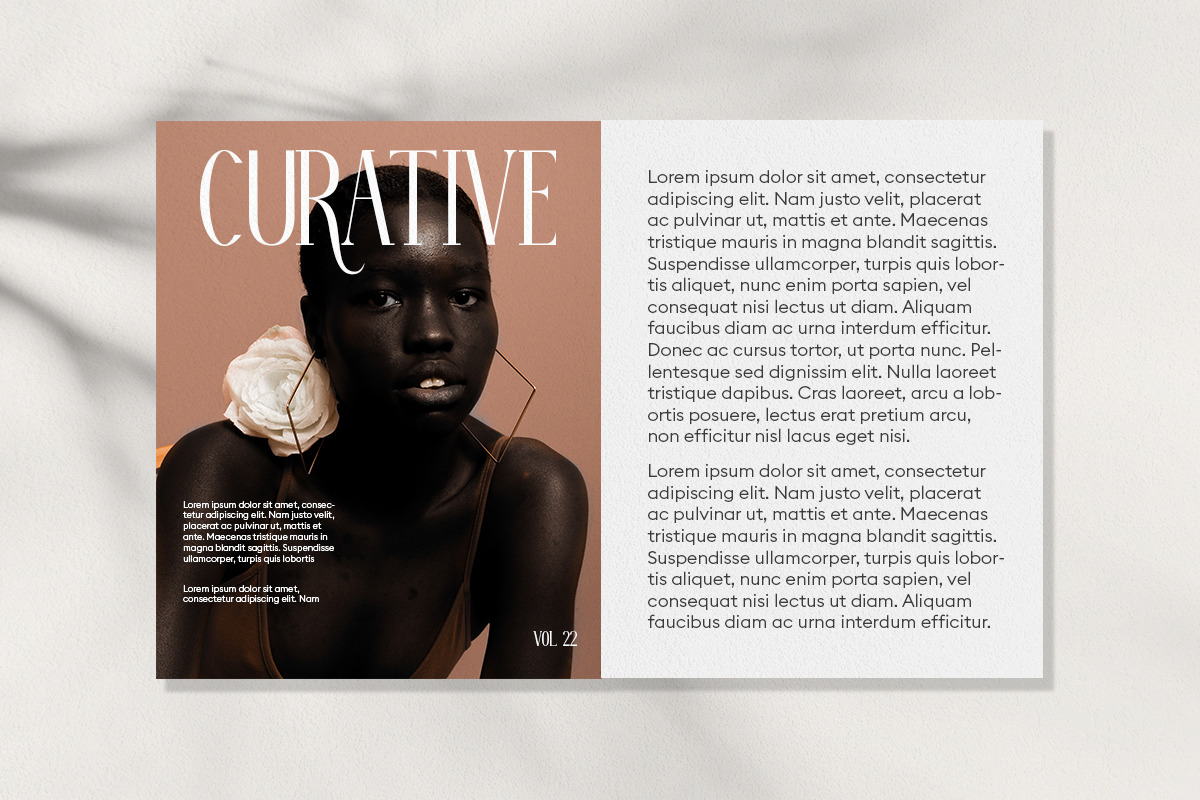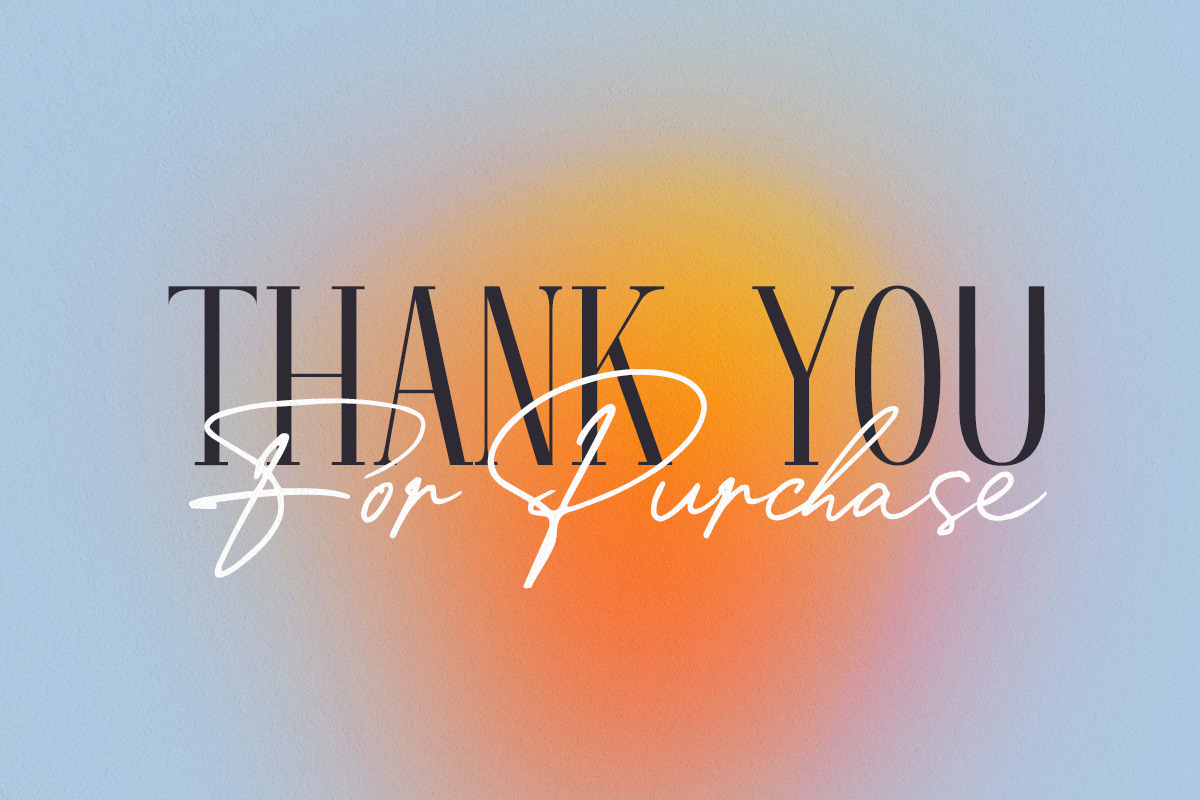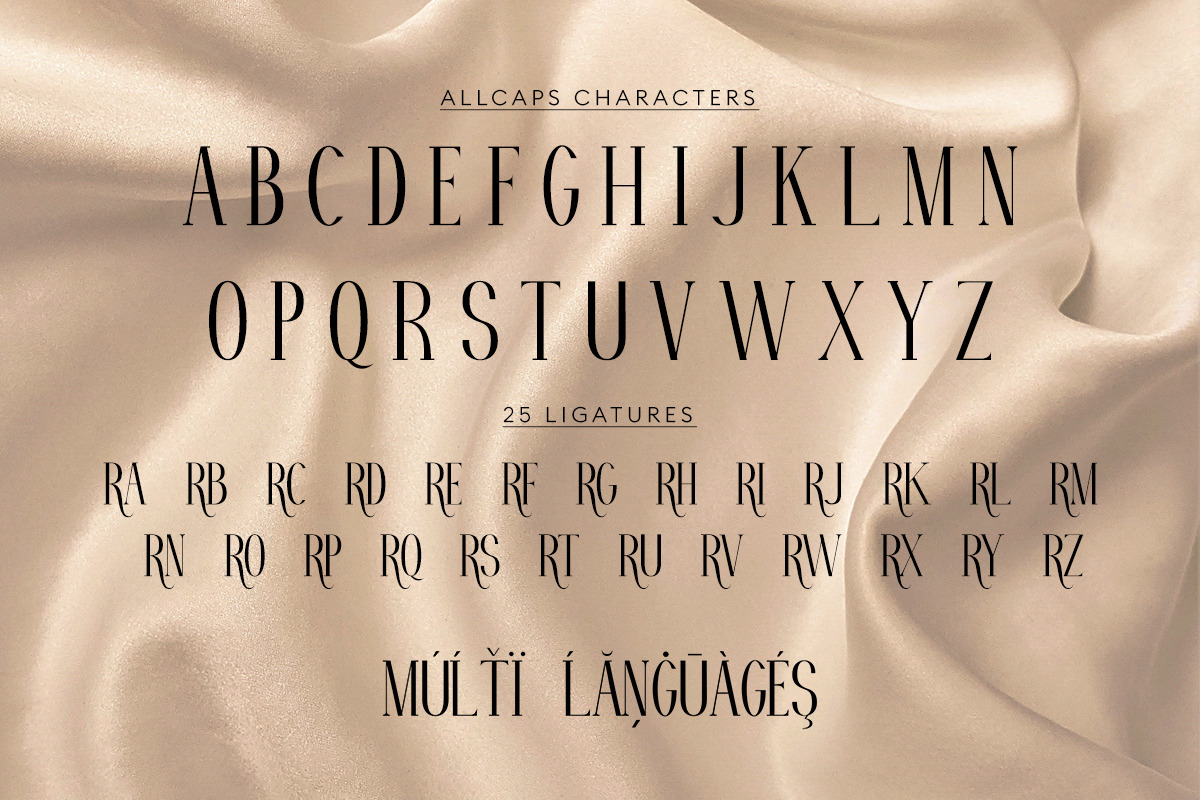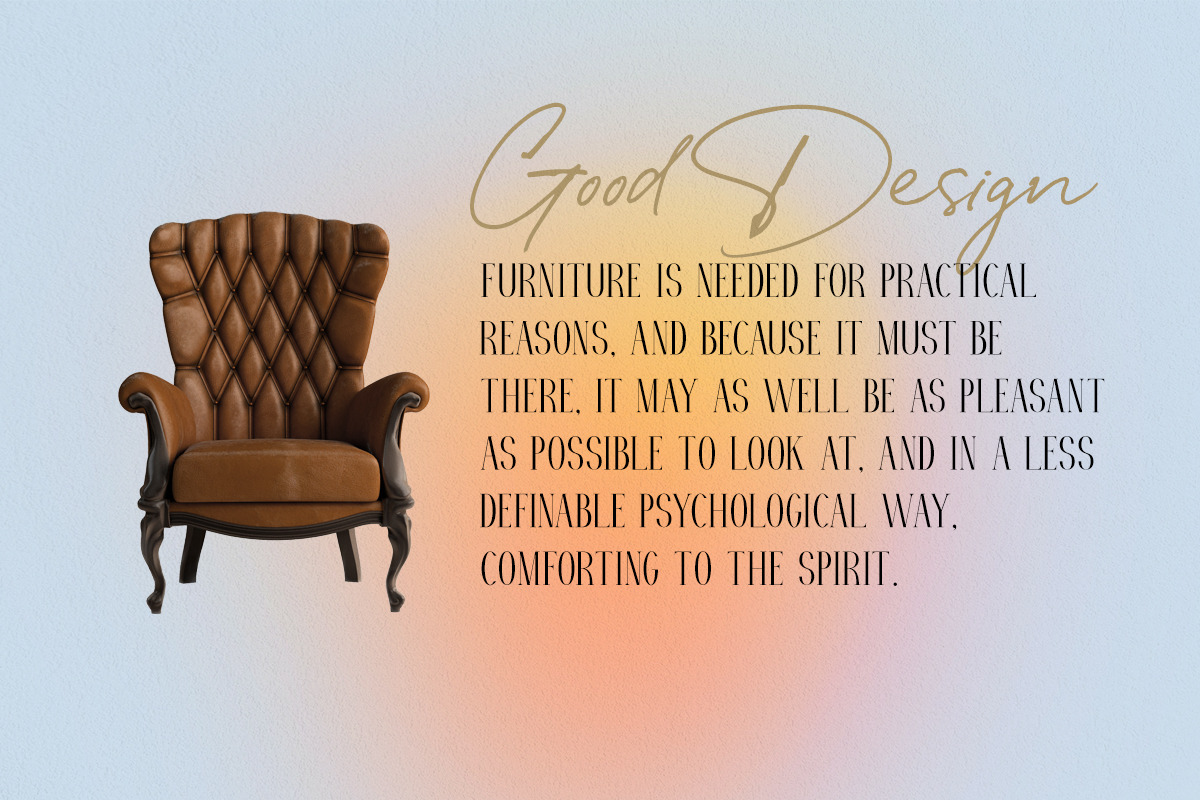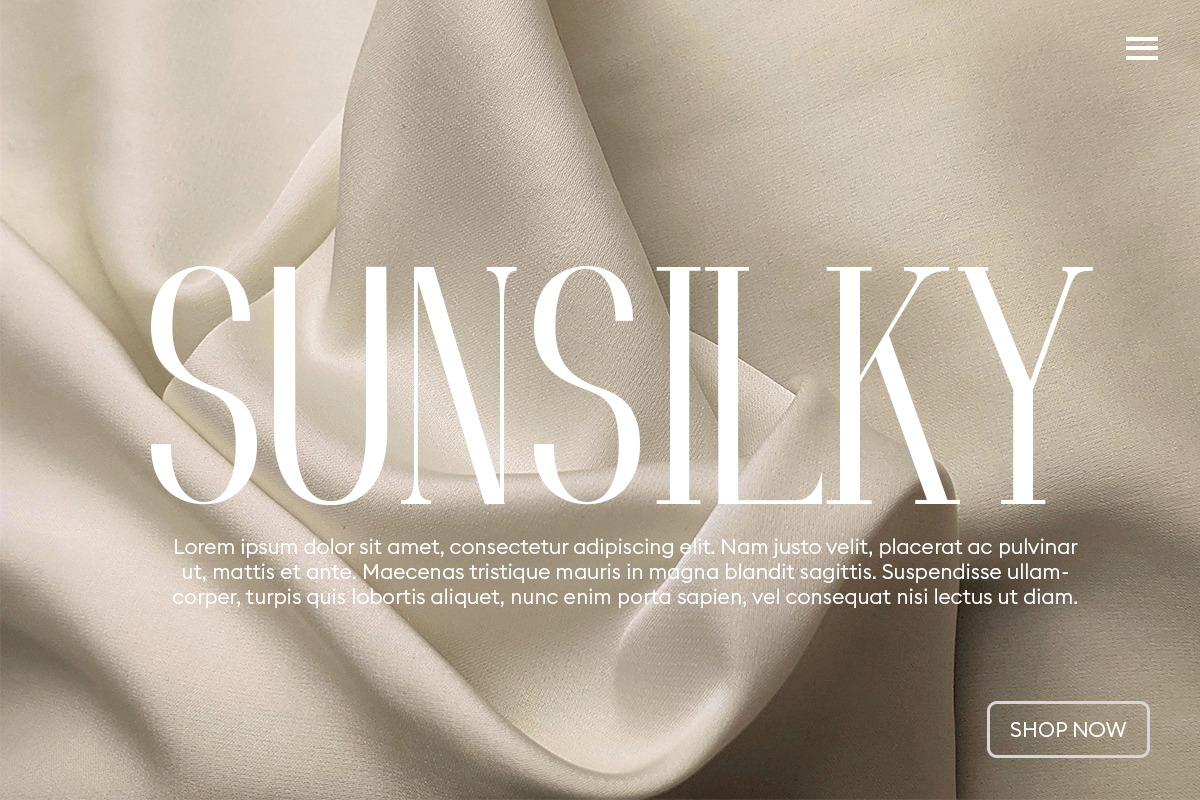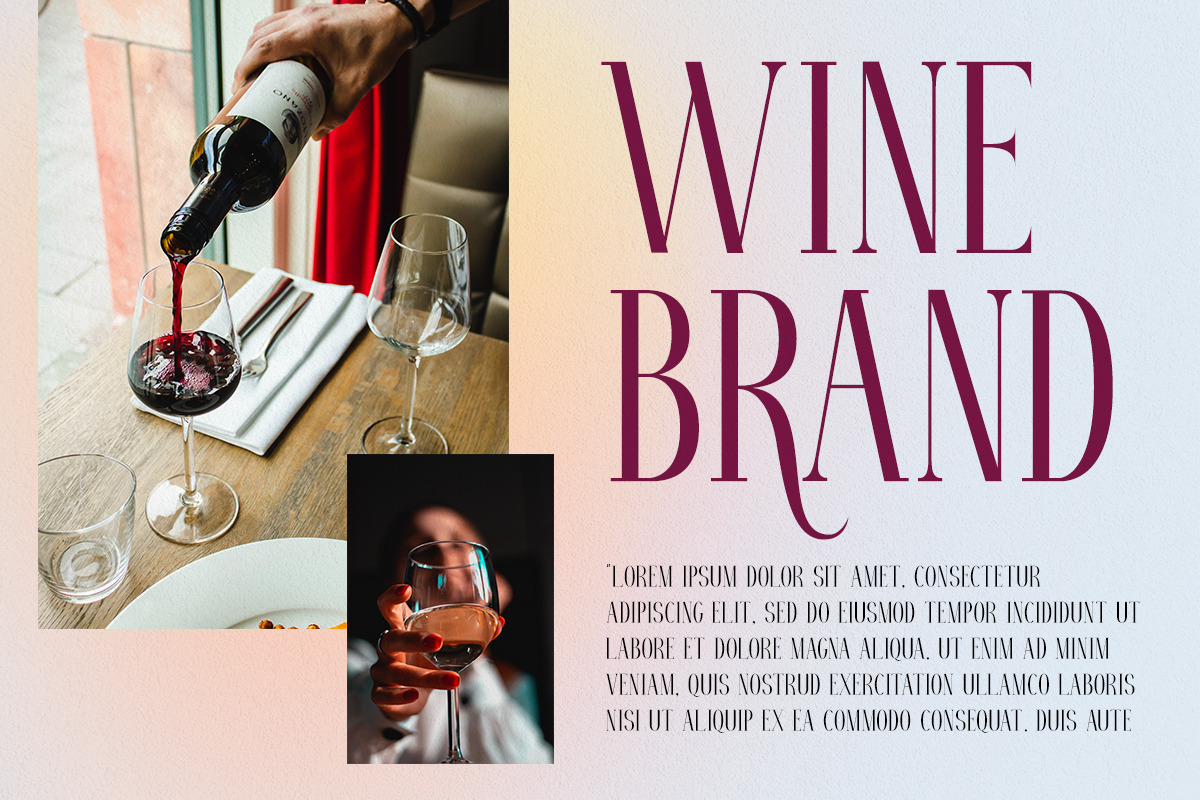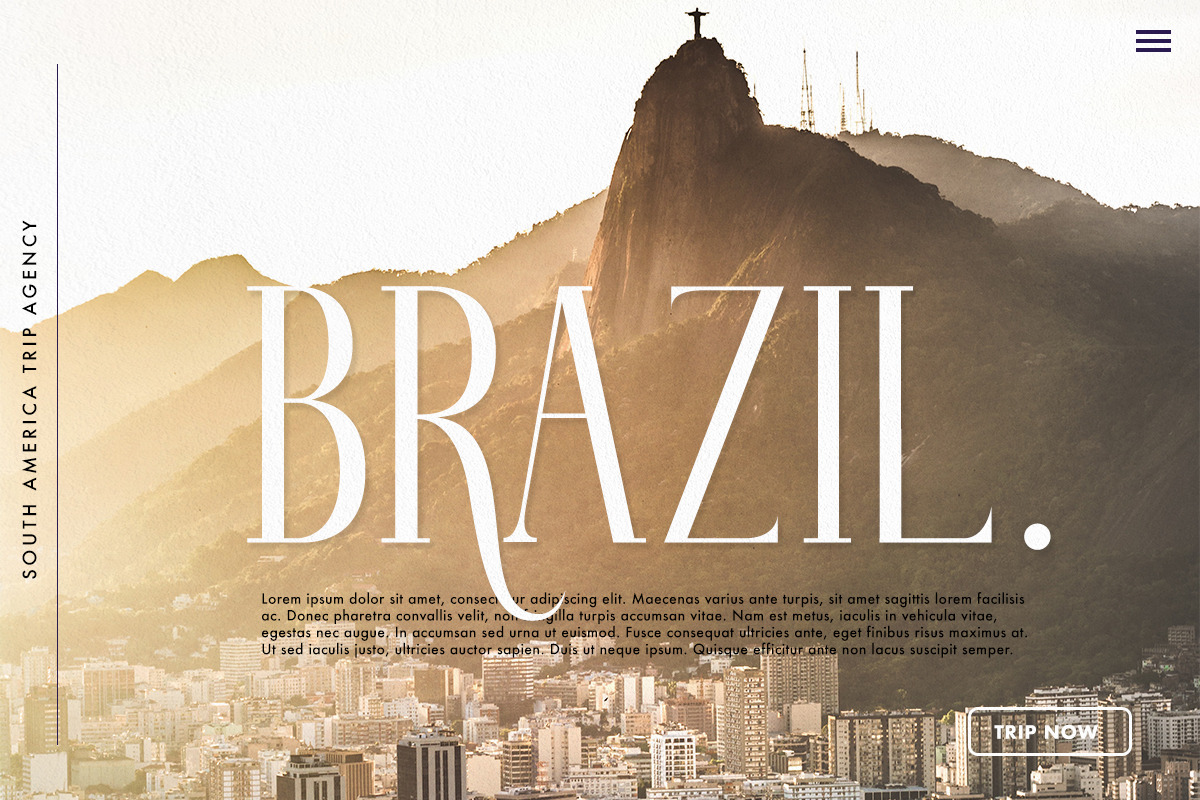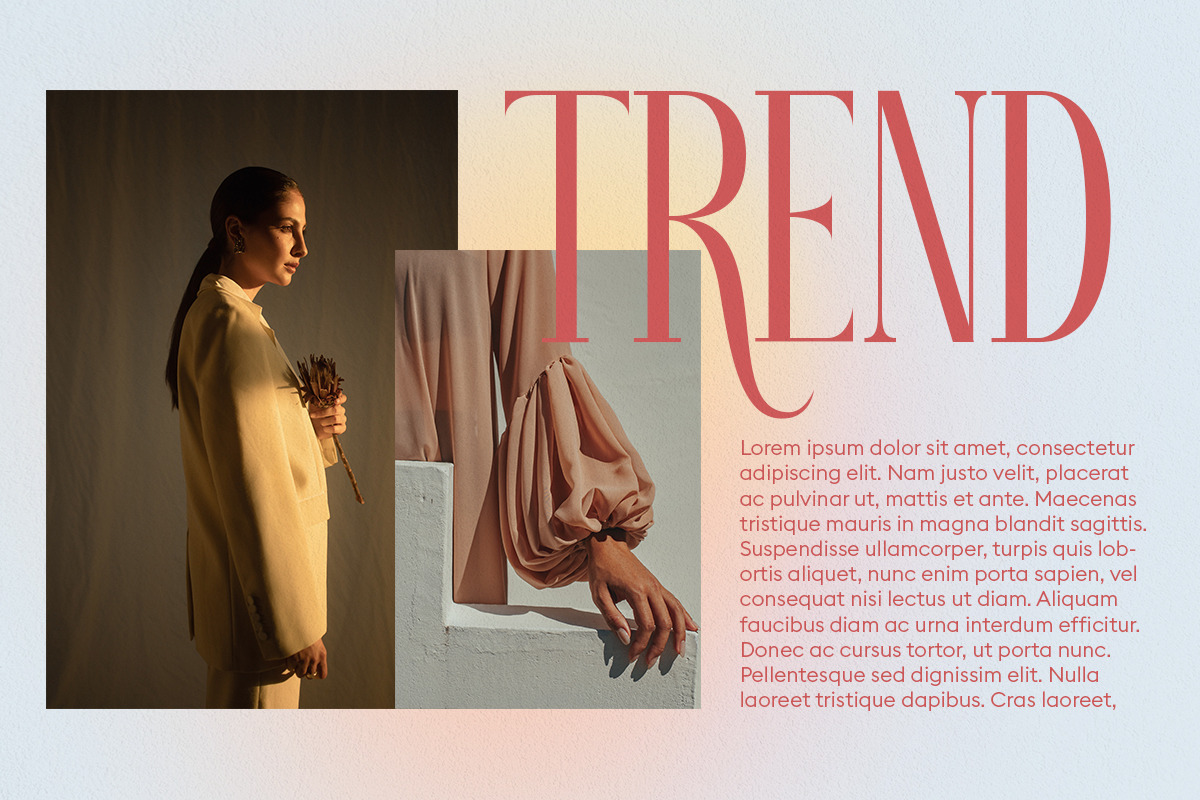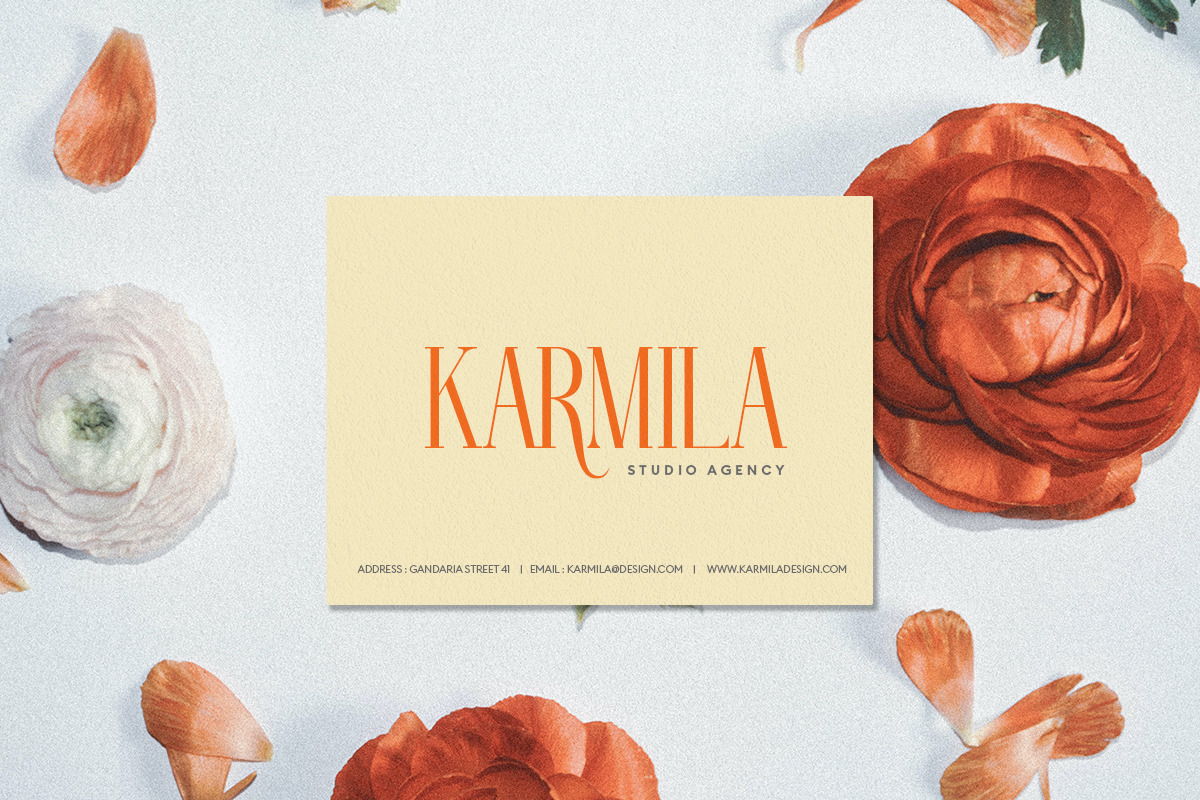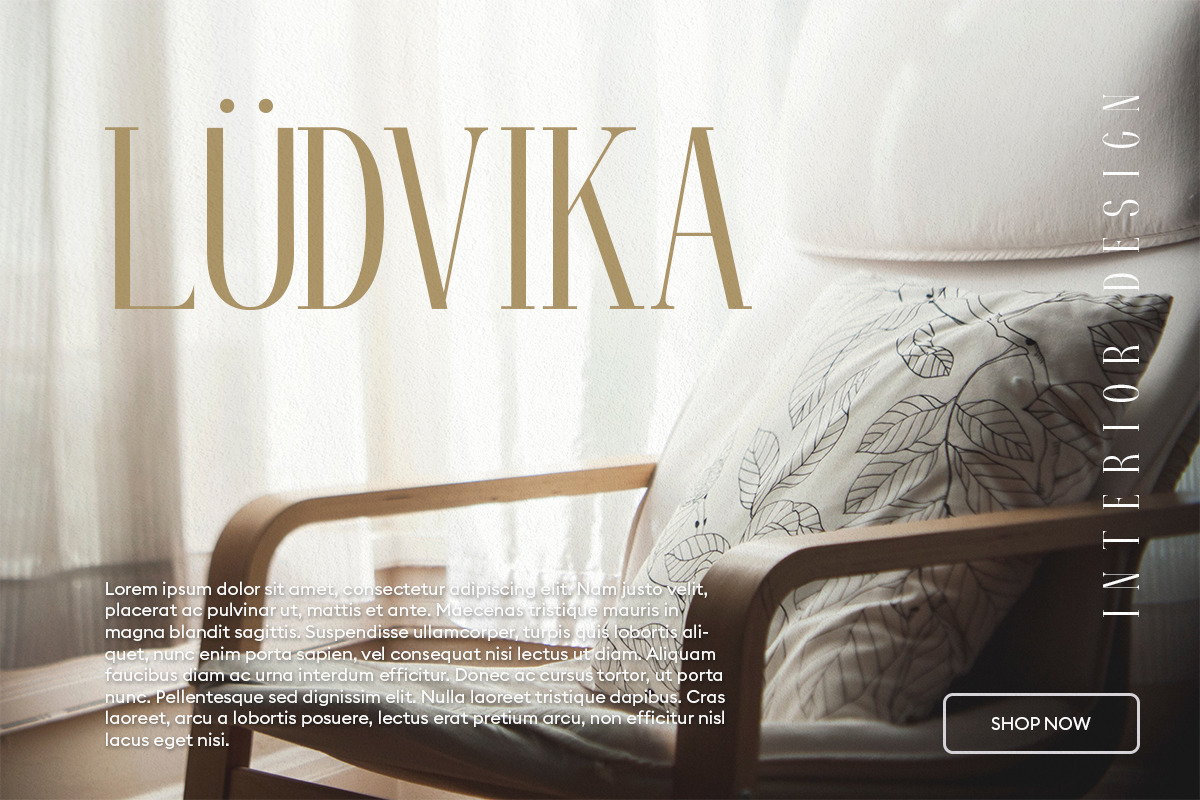
Mordena - Luxury Serif
Introducing Mordena luxury serif font! A modern and beautiful serif with luxury style and supports with elegant ligatures & multilingual support. It's a versatile font that looks great with all caps characters.
Mordena font is perfect for logo design, Webfont headers, fashion branding, product packaging, magazine headers, and many more. Mordena font will be perfect if you pairing with some handwriting font in some other occasion design.